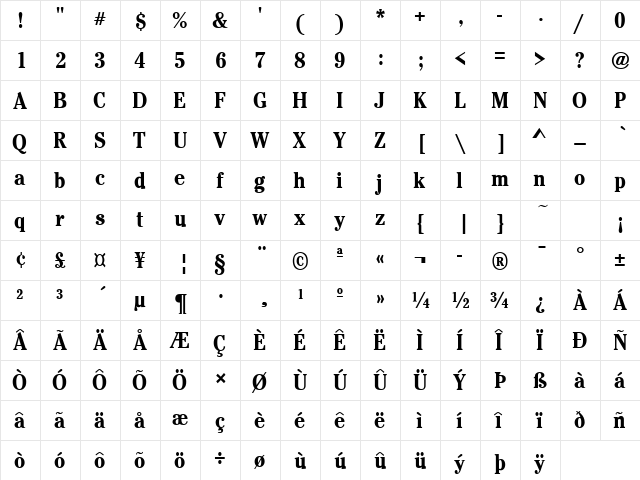
CheltenhamCond Bold Font Preview
CheltenhamCond Bold
CheltenhamCond Bold Font Details
Design Context for CheltenhamCond Typeface
CheltenhamCond takes a measured approach to typography — its balanced proportions and neutral character make it a reliable workhorse for both digital and print work. The heavy weight commands attention and anchors typographic hierarchies. The condensed width makes it efficient for tight spaces without sacrificing legibility.